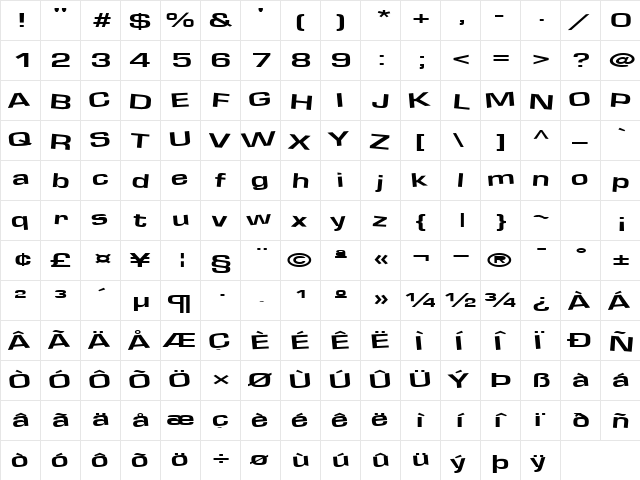
Soda Regular Font Preview
Soda Regular
Design Context for Soda Typeface
Soda offers clean, dependable letterforms without strong stylistic allegiance, making it a practical choice for designers who need flexibility.